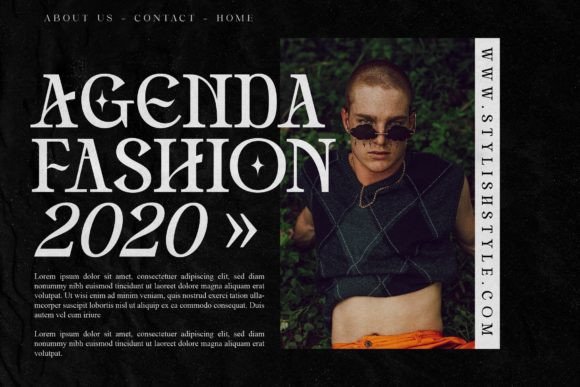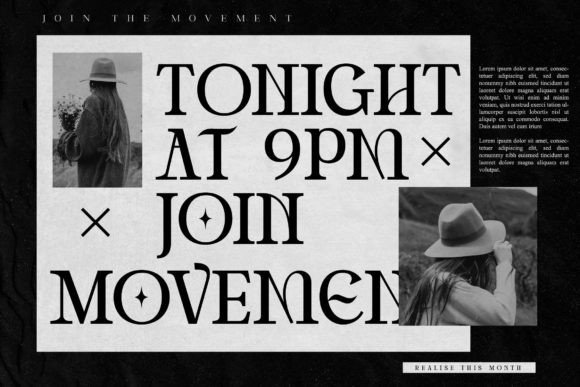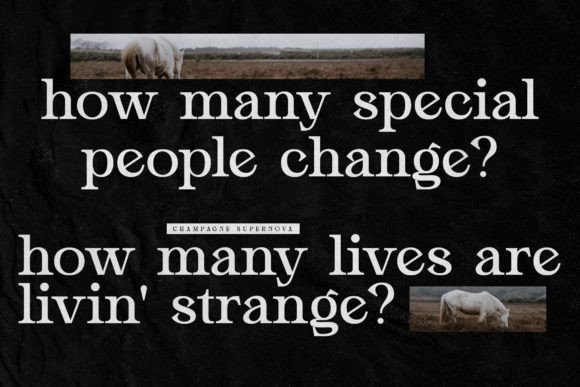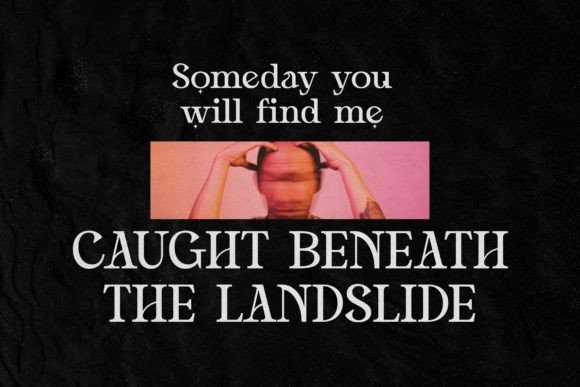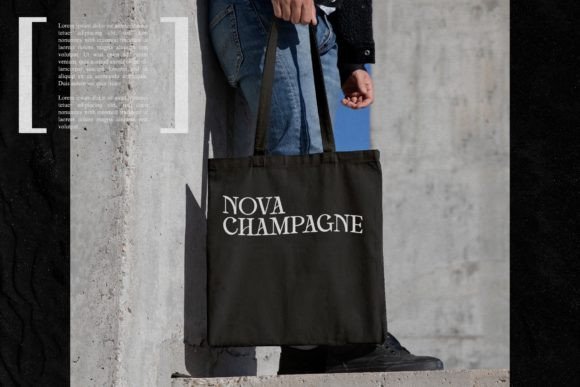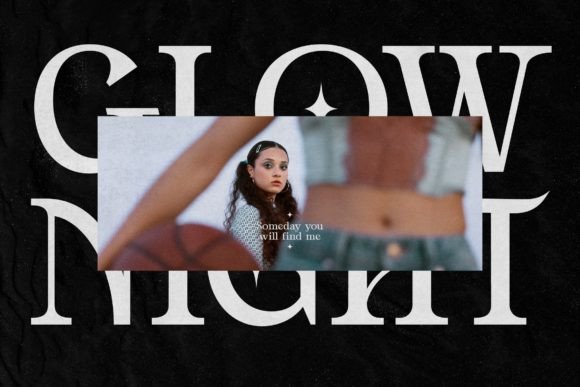
Introducing Glow Night Font: Elevate Your Designs with Elegance and Luxury
In the world of typography, fonts play a crucial role in conveying the tone and personality of a brand or design. For designers and crafters seeking to add a touch of sophistication and glamour to their projects, Glow Night Font is an exceptional choice. This classic serif font boasts a unique style and modern look, making it perfect for a wide range of applications, from elegant logos and luxury branding to book and movie titles, fashion designs, and more.
A Font that Exudes Elegance and Sophistication
Glow Night Font is designed to make a statement. Its classic serif structure provides a sense of tradition and timelessness, while its modern twist adds a fresh and contemporary feel. This font is ideal for designers who want to create a sense of luxury and refinement in their work. Whether you’re designing a logo, brochure, or website, Glow Night Font is sure to impress.
Versatility at its Best
One of the standout features of Glow Night Font is its versatility. This font can be used in a variety of contexts, including:
- Elegant logos and luxury branding
- Book and movie titles
- Fashion designs and clothing branding
- Magazines and editorial design
- Lettering and quotes
With Glow Night Font, you can add a touch of elegance and sophistication to any design project. Its flexibility and range make it an excellent addition to any designer’s toolkit.
Glow Night Font is PUA (Private Use Area) encoded, which means that you can access all of the glyphs and swashes with ease. This encoding allows you to unlock the full potential of the font, giving you greater creative control and flexibility. With PUA encoding, you can:
- Access a wide range of glyphs and swashes
- Customize your designs with ease
- Create unique and intricate typography
Why Choose Glow Night Font?
So, why should you choose Glow Night Font for your design projects? Here are just a few reasons:
- Elegance and sophistication: Glow Night Font exudes luxury and refinement, making it perfect for high-end branding and design.
- Versatility: This font can be used in a wide range of contexts, from logos and titles to lettering and quotes.
- PUA encoded: With PUA encoding, you can access all of the glyphs and swashes with ease, giving you greater creative control.
- Modern and classic: Glow Night Font combines modern style with classic serif structure, making it a timeless choice for designers.
In conclusion, Glow Night Font is an exceptional choice for designers and crafters seeking to add a touch of elegance and sophistication to their work. With its classic serif structure, modern twist, and PUA encoding, this font is perfect for a wide range of design projects. Whether you’re creating a luxury brand, designing a book title, or crafting a fashion design, Glow Night Font is sure to impress. Add it to your toolkit today and experience the power of elegant typography.